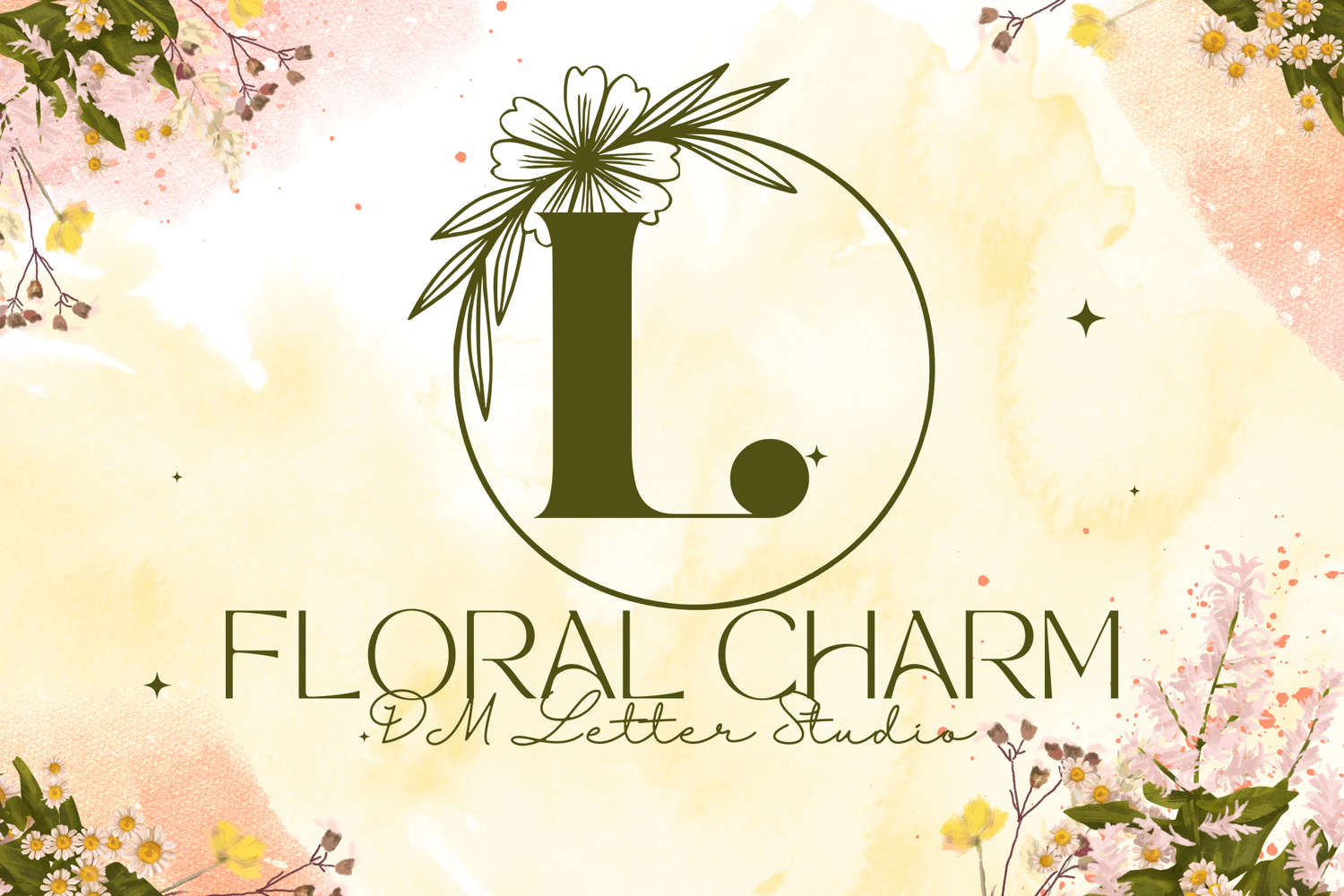
Floral Charm Monogram - Decorative Botanical Monogram Serif
Floral Charm Monogram
Floral Charm Monogram – Decorative Botanical Monogram Serif Font
Floral Charm Monogram is a delicate and ornate serif monogram font featuring beautifully detailed floral embellishments on each uppercase letter. Inspired by romantic garden aesthetics and timeless monogram traditions, this font brings graceful charm to weddings, customized gifts, branding, and luxury stationery. Its refined yet organic design makes every initial feel custom and meaningful.
• Botanical Ornamentation: Each capital letter is accented with elegant floral details for a soft, romantic touch.
• Classic Serif Structure: Strong yet graceful letterforms deliver readability with a traditional aesthetic.
• Perfect for Customization: Ideal for initials, crests, logos, and monogram-focused projects.
• Ideal For: Wedding invitations, floral logos, premium gifts, boutique packaging, home decor, and stationery suites.